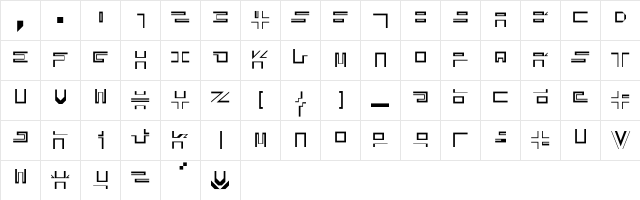
City Habitation
Design Context for City Typeface
City is a composed and adaptable typeface that performs quietly and consistently across a wide range of design contexts.